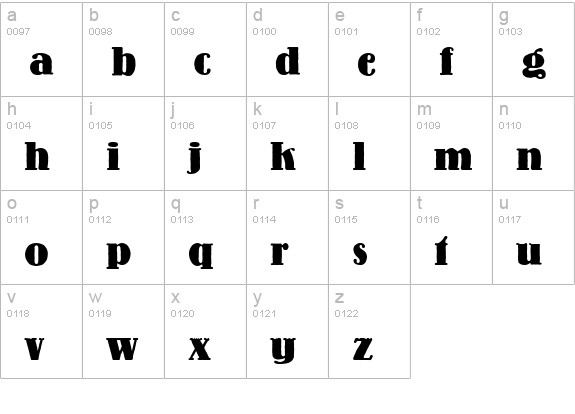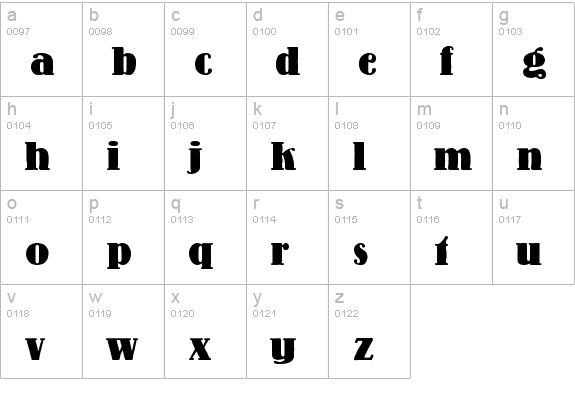
Louis-Bold Font Details
Louis-Bold is a strong, high-contrast variant in the Louis typeface family \xE2\x80\x94 well suited to headlines, attention-grabbing titles, and strong calls-to-action.
Louis-Bold is a versatile and striking font that exudes confidence and boldness in every character. Its strong and impactful design makes it perfect for headlines, titles, and branding materials that demand attention. With its sharp lines and sleek curves, Louis-Bold adds a touch of modern sophistication to any project. What makes Louis-Bold even more appealing is that it is completely free to download at FontsMarket.com. This means you can easily access this stylish font and incorporate it into your designs without any cost. Whether you're working on a professional presentation, a creative poster, or a sleek website, Louis-Bold will elevate your typography game and leave a lasting impression on your audience. Don't miss out on the opportunity to enhance your projects with this eye-catching font that is just a click away.